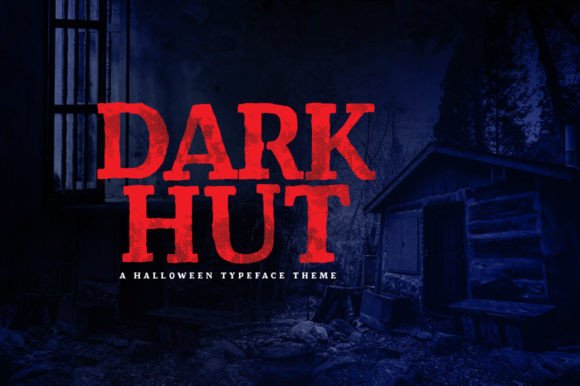
Unleashing the Spookiness: A Comprehensive Guide to Dark Hut Font
The world of typography is vast and diverse, offering a plethora of fonts to suit various design needs. Among these, the Dark Hut font stands out as a unique and spooky display font, perfect for Halloween or horror-themed designs. In this article, we’ll delve into the features, uses, and benefits of the Dark Hut font, exploring how it can elevate your creative projects.
What is Dark Hut Font?
The Dark Hut font is a distinctive, eerie display font designed to add a touch of spookiness to your designs. Its unique style and aesthetic make it an ideal choice for projects that require a haunting or eerie feel. Whether you’re working on a Halloween-themed project or a horror-inspired design, the Dark Hut font is sure to make it stand out.
Key Features of Dark Hut Font
- Unique and Spooky Design: The Dark Hut font boasts a one-of-a-kind design that’s sure to grab attention. Its spooky aesthetic makes it perfect for Halloween or horror-themed projects.
- Versatility: This font can be matched with an incredibly large set of projects, making it a versatile addition to your design toolkit.
Uses of Dark Hut Font
The Dark Hut font is suitable for a wide range of projects, including:
- Halloween-themed designs: The font’s spooky design makes it perfect for Halloween-themed projects, such as posters, invitations, or social media graphics.
- Horror-themed designs: The Dark Hut font is also ideal for horror-themed projects, such as movie posters, book covers, or video game designs.
- Creepy crafts: You can use the Dark Hut font to create creepy crafts, such as DIY decorations, cards, or gift tags.
- Dark and moody designs: The font’s eerie aesthetic makes it suitable for dark and moody designs, such as album covers, fashion designs, or editorials.
Benefits of Using Dark Hut Font
Using the Dark Hut font can bring several benefits to your designs, including:
- Uniqueness: The Dark Hut font’s distinctive design ensures that your projects stand out from the crowd.
- Emotional Connection: The font’s spooky aesthetic can evoke emotions and create a connection with your audience.
- Creativity: The Dark Hut font can inspire creativity and add a touch of eeriness to your designs.
- Professionalism: Using a unique and high-quality font like Dark Hut can add a level of professionalism to your designs.
Tips for Using Dark Hut Font
To get the most out of the Dark Hut font, consider the following tips:
- Pair it with contrasting fonts: Pair the Dark Hut font with contrasting fonts to create visual interest and hierarchy.
- Experiment with colors: Try out different colors to find the perfect combination that complements the font’s spooky aesthetic.
- Use it sparingly: Use the Dark Hut font sparingly to avoid overwhelming your design. It’s best used as an accent font to add a touch of eeriness.
| Author | Khurasan |
The Dark Hut font is a unique and spooky display font that’s perfect for Halloween or horror-themed designs. Its versatility, ease of use, and distinctive design make it an excellent addition to your design toolkit. By incorporating the Dark Hut font into your projects, you can add a touch of eeriness and create a lasting impression on your audience.